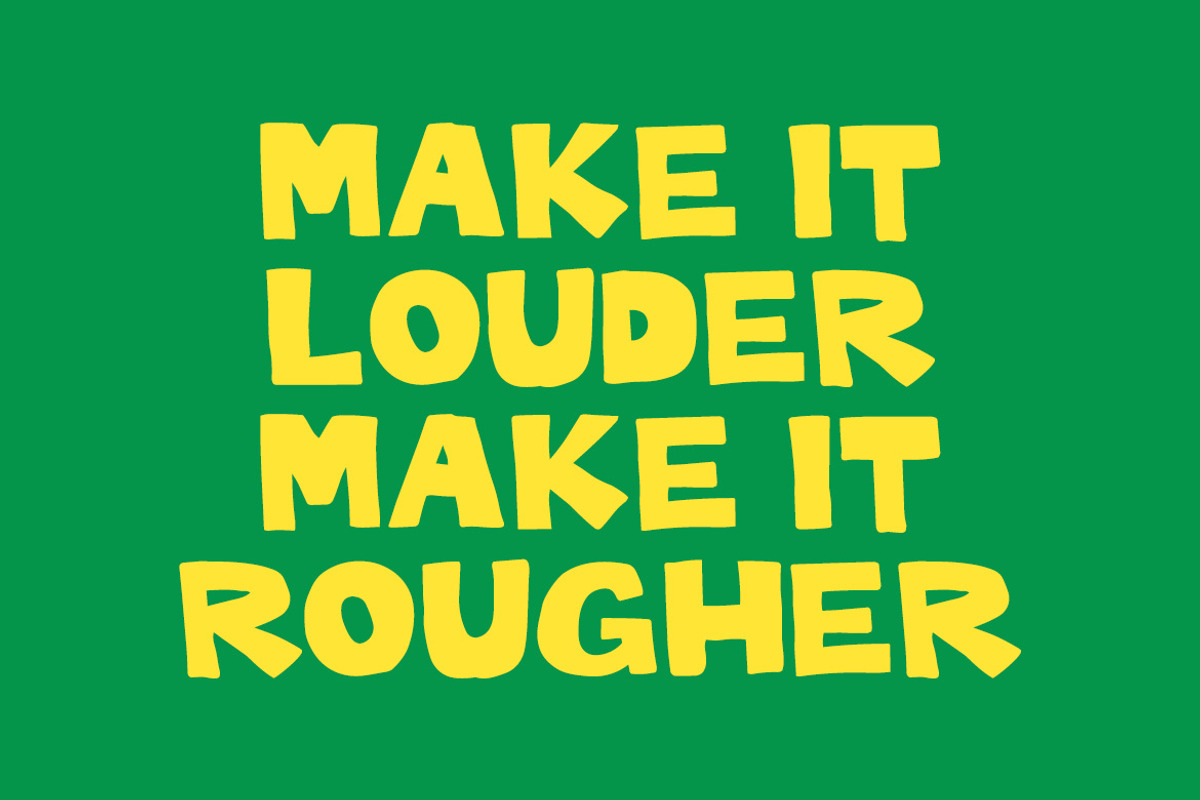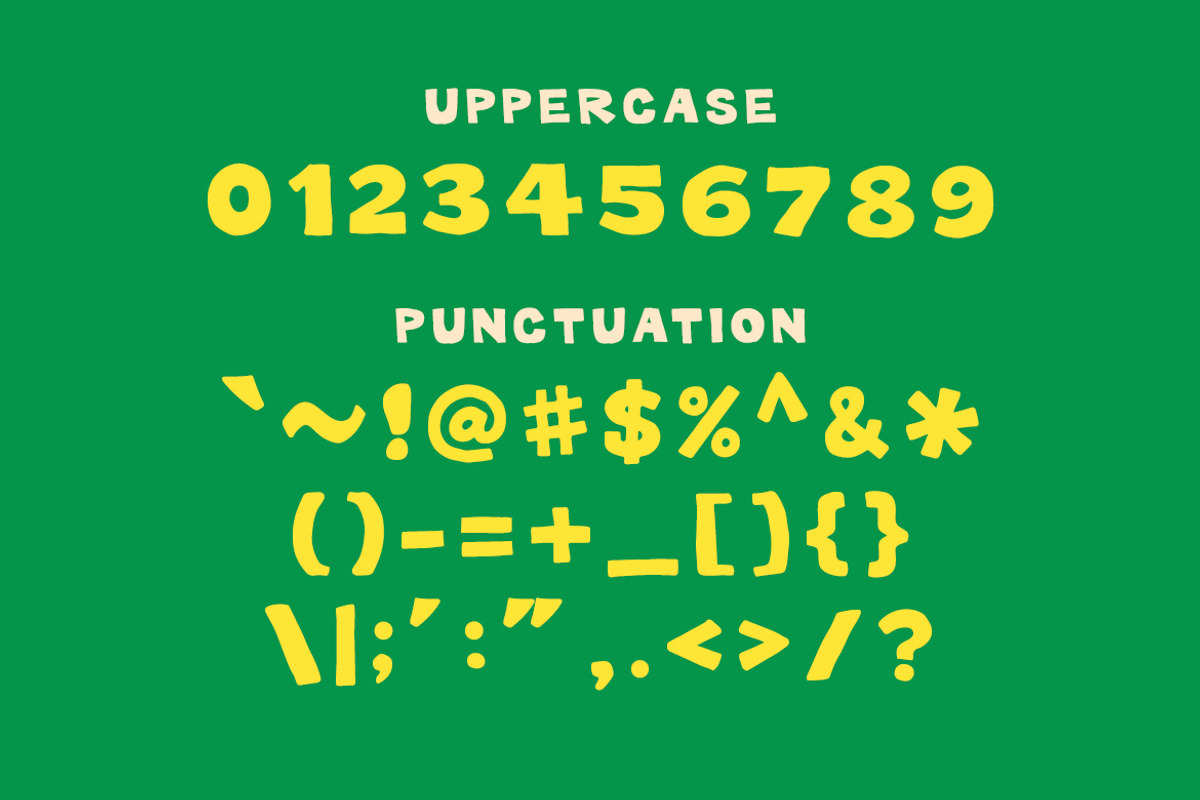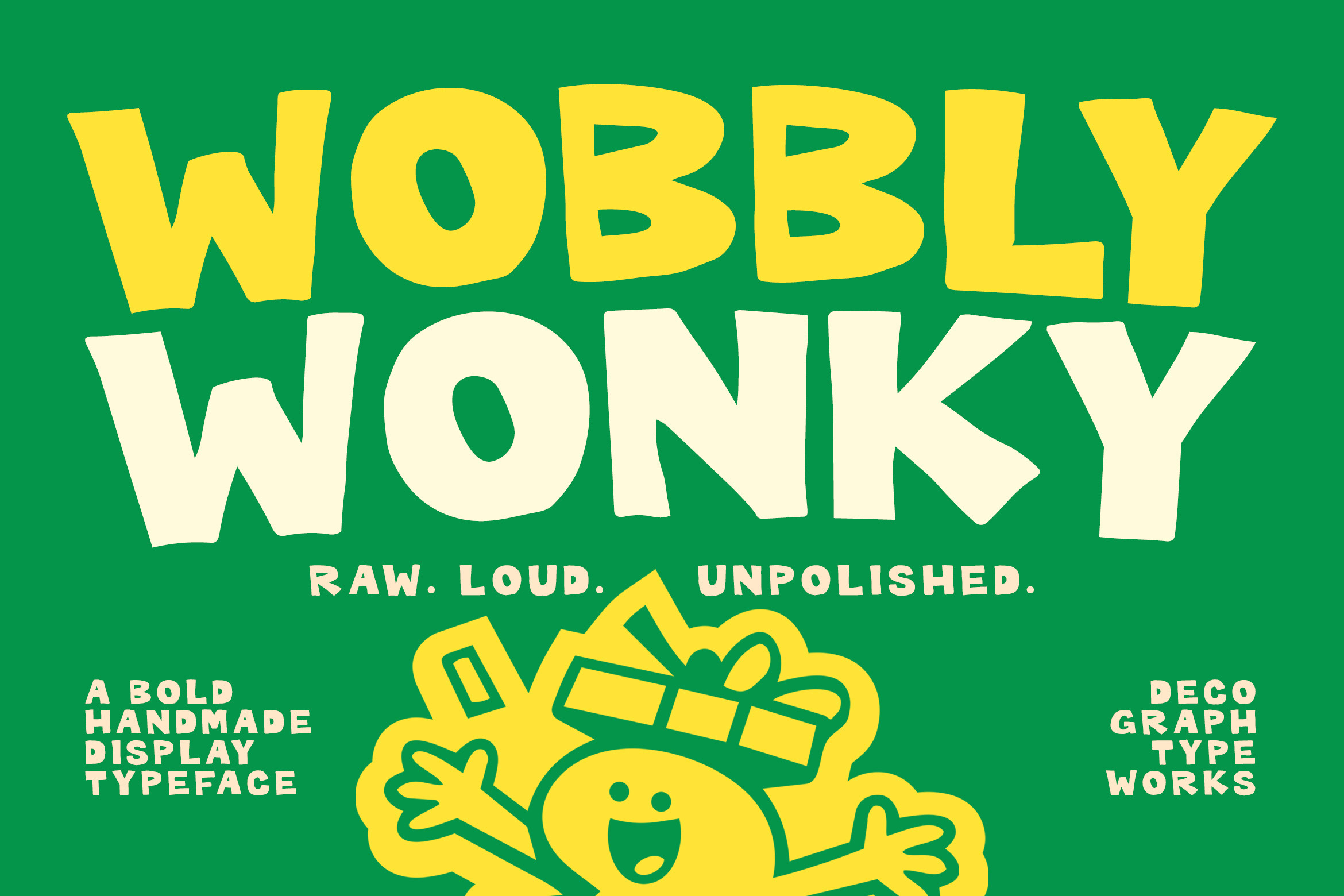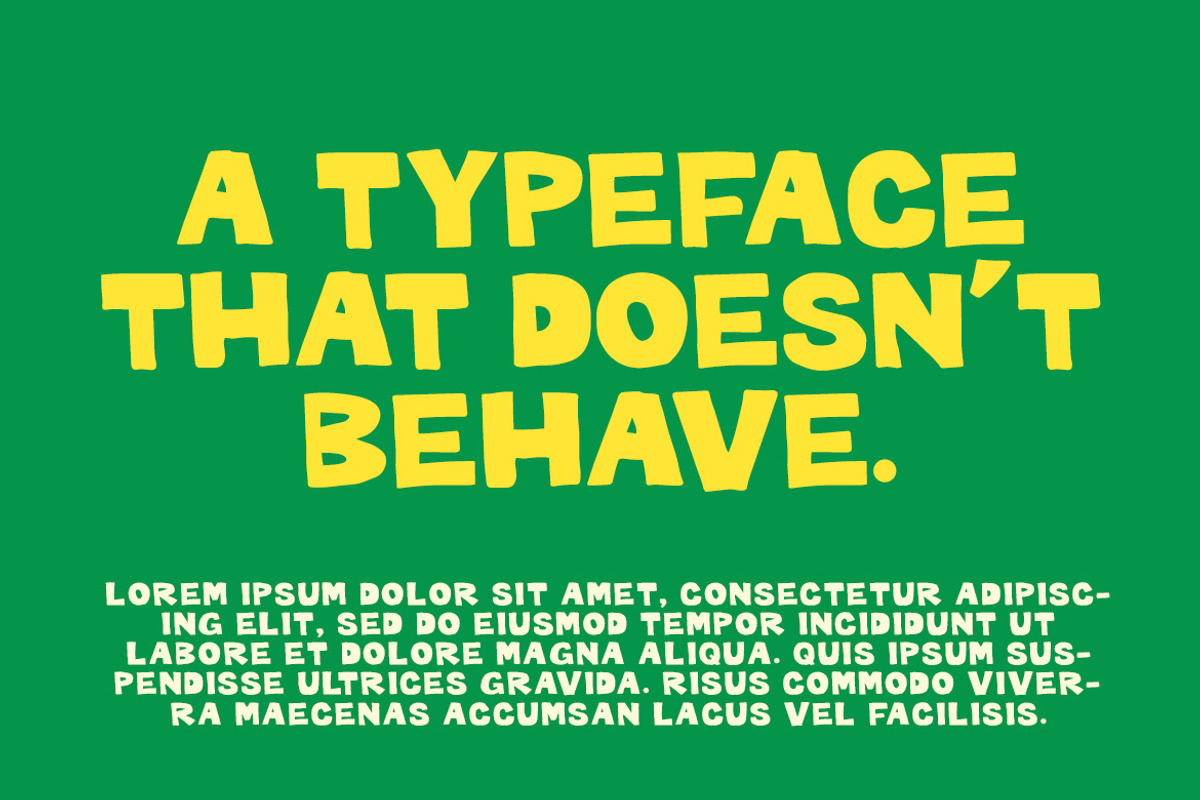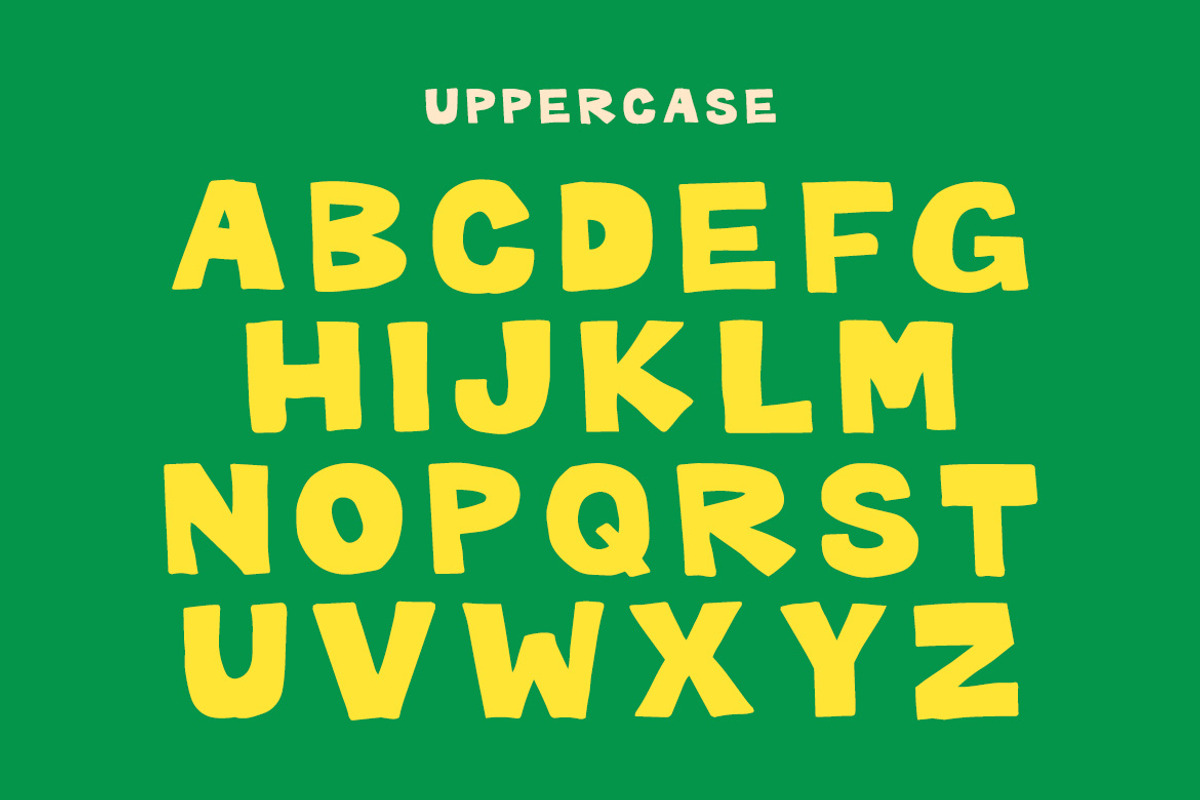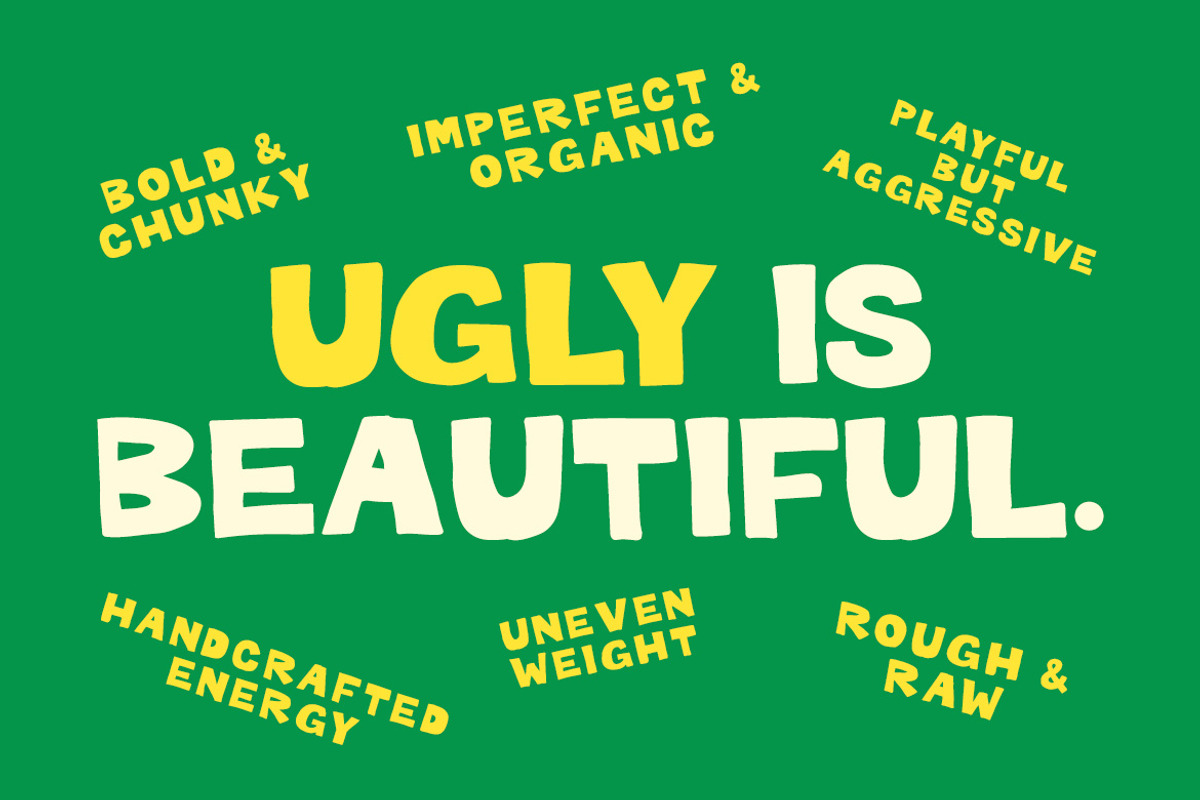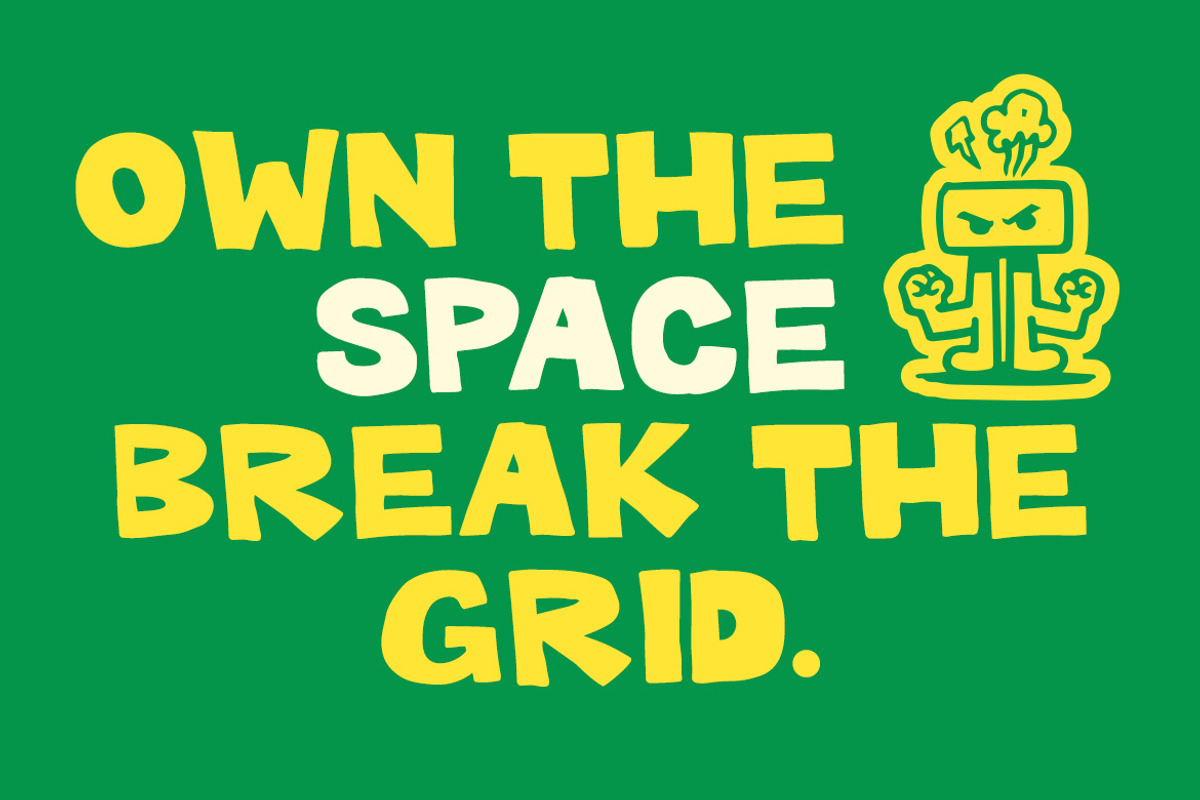
WOBBLY WONKY – Quirky Display Font
WOBBLY WONKY is a bold, playful handmade display typeface bursting with raw energy and imperfect charm, featuring irregular shapes, uneven strokes, and a delightfully unpolished look that feels authentic and full of personality. Its quirky, off-balance letterforms create a loud and expressive visual impact, making it perfect for fun branding, kids projects, posters, packaging, comics, social media graphics, and anything that needs a cheerful, handcrafted vibe. Designed to stand out with its organic wobble and friendly attitude, this font brings a sense of spontaneity and creativity that instantly makes your designs feel more alive and approachable.